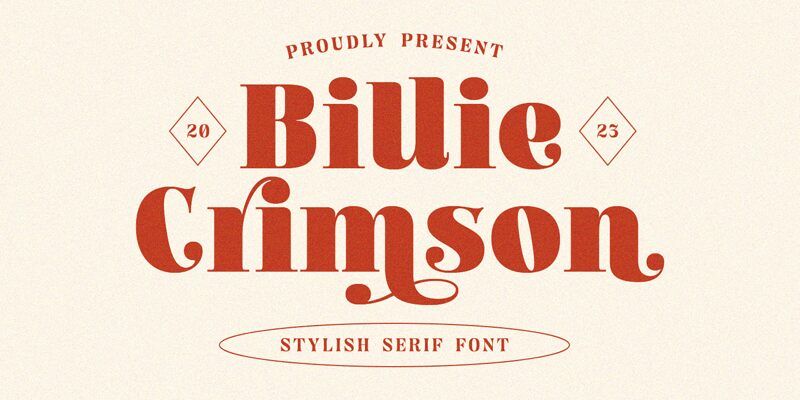
Billie Crimson, a captivating serif font crafted by the talented team at Letterhend Studio, commands attention with its bold and distinctive presence. This striking typeface exudes a timeless elegance, blending traditional serif elements with a modern flair. The robust and confident letterforms, accentuated by their substantial weight, create a powerful visual impact, making Billie Crimson an exceptional choice for projects that demand a strong, authoritative tone.
Versatile and adaptable, Billie Crimson seamlessly transitions between design contexts, from commanding headlines to refined body copy. Its robust personality lends itself well to a variety of applications, including editorial layouts, branding materials, and attention-grabbing displays. Whether you're crafting a compelling brand identity or curating a visually captivating publication, Billie Crimson's versatility and distinctive style will elevate your design.